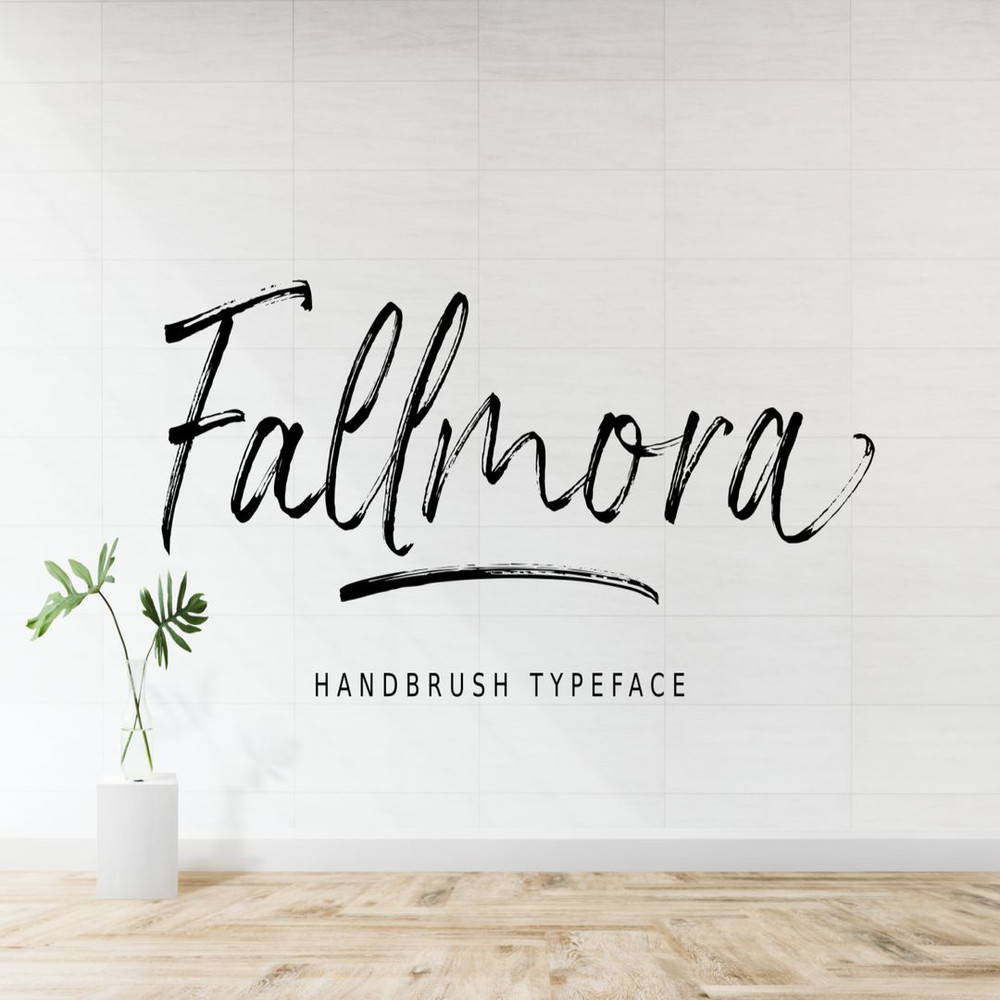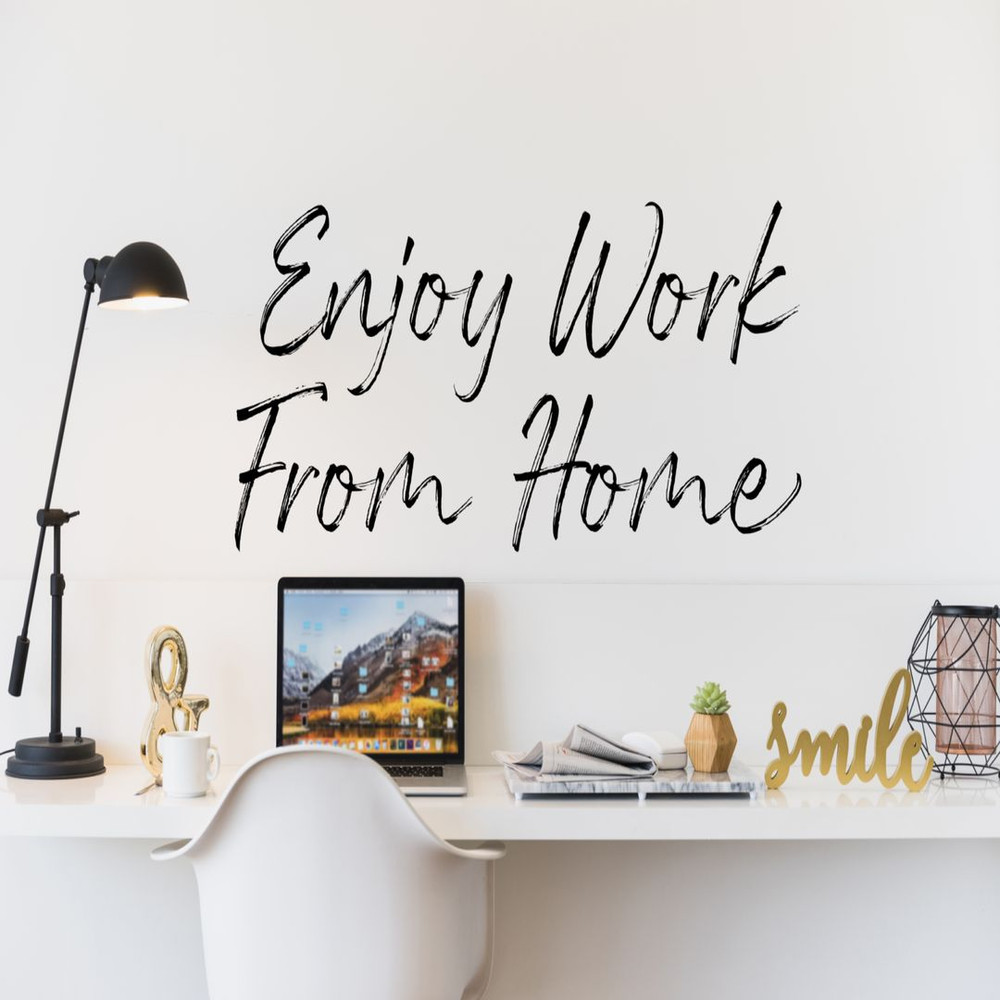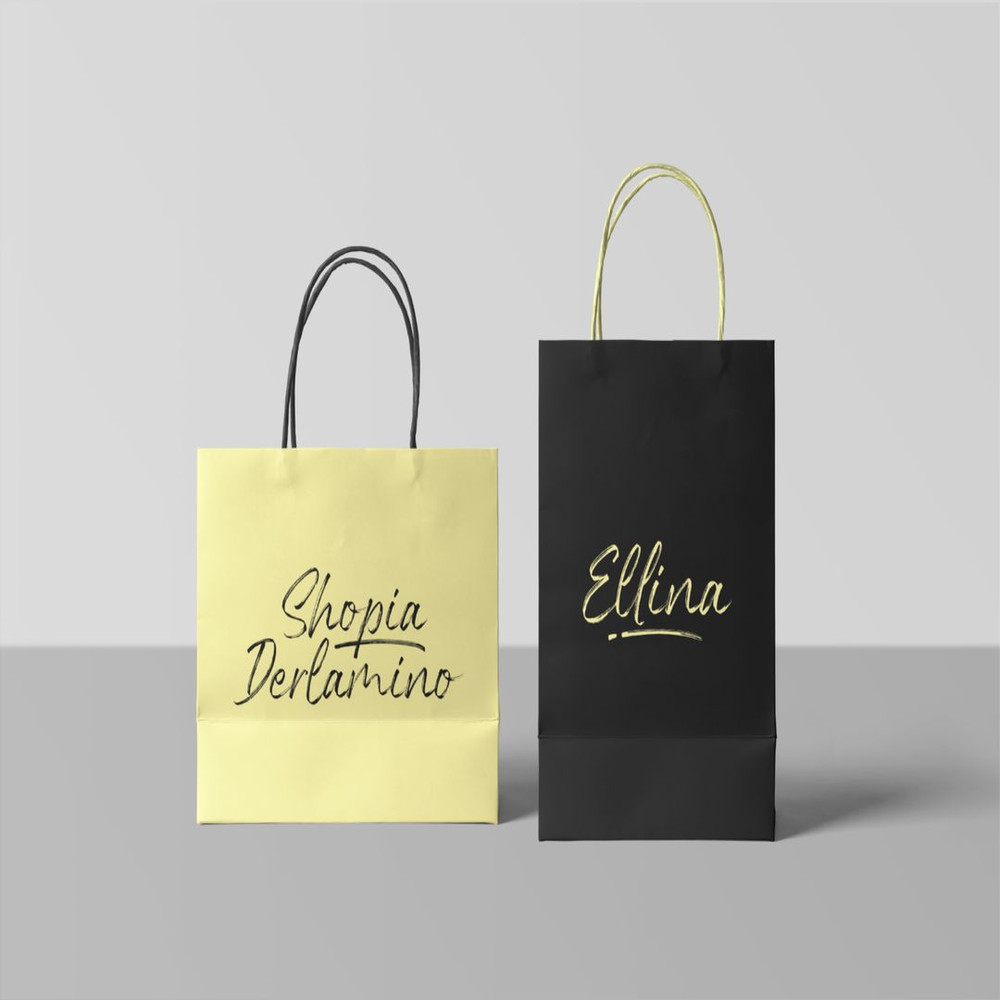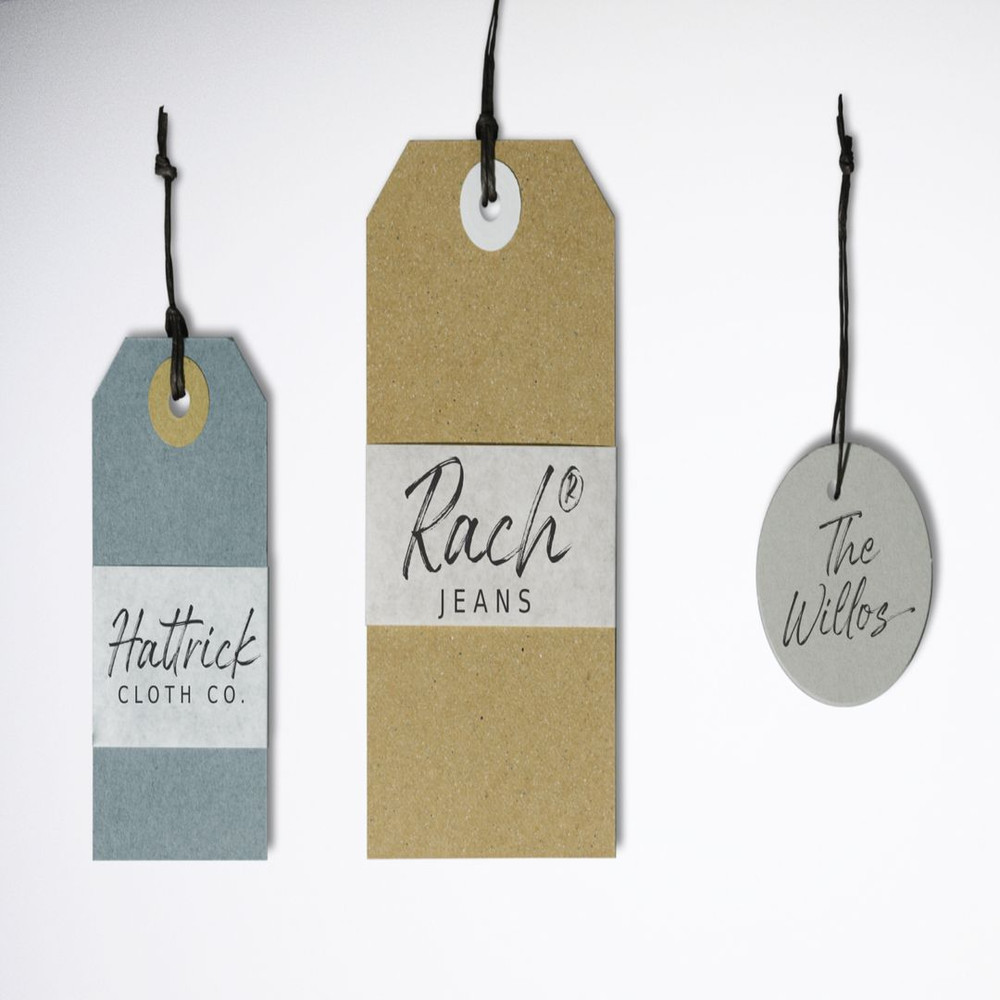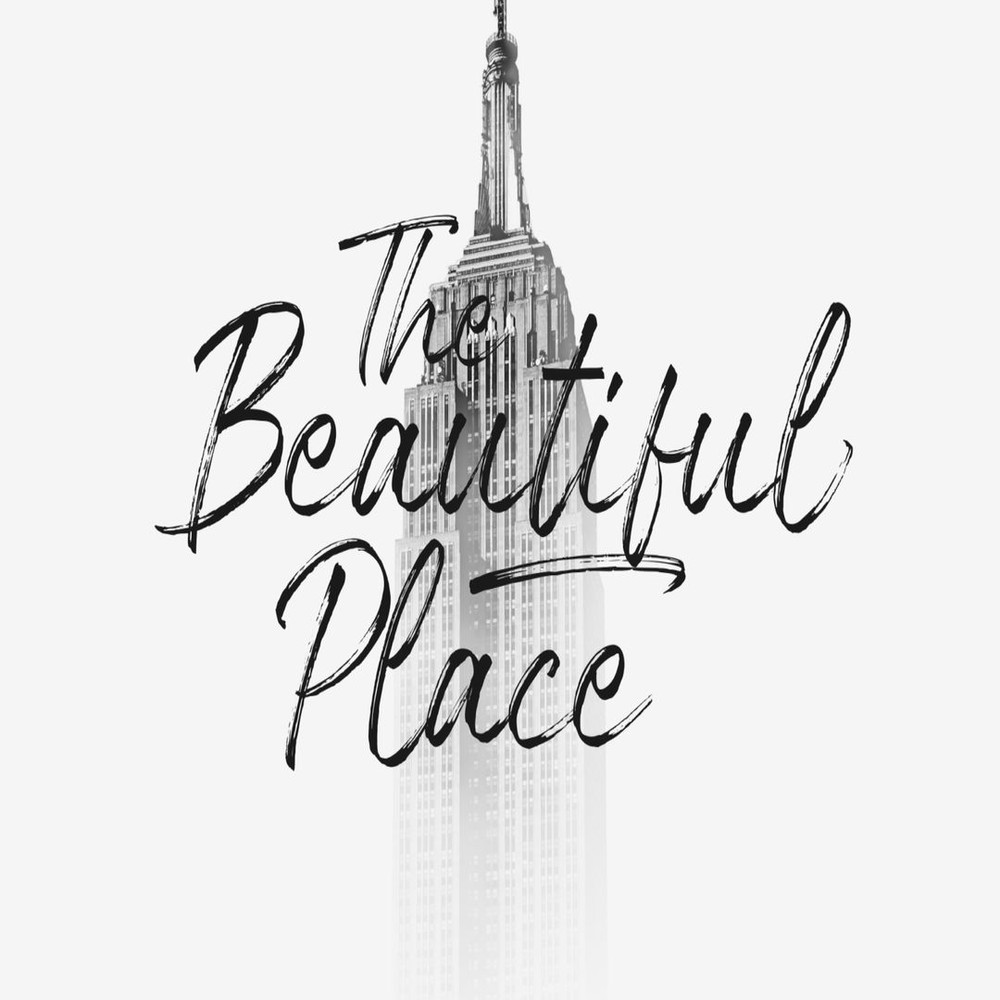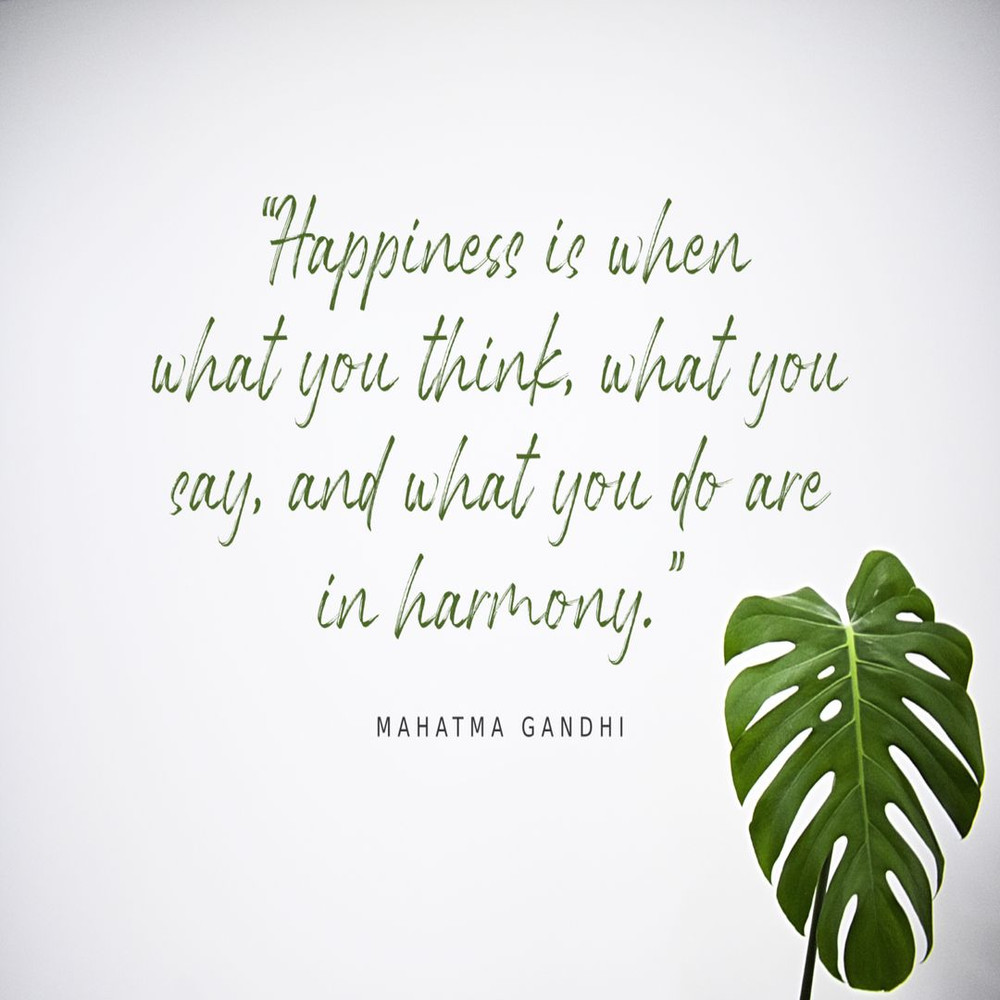
Introducing Fallmora hand brush typeface is a script font that carefully crafted. It comes with natural and organic flowing brush pen, make the letters look cool and classy. Fallmora has a unique style and charming characteristic from the brush texture.
Fallmora is a good choice for many different projects such as logos & branding, invitation, stationery, wedding designs, social media posts, advertisements, product packaging, product designs, label, photography, watermark, special events or anything.